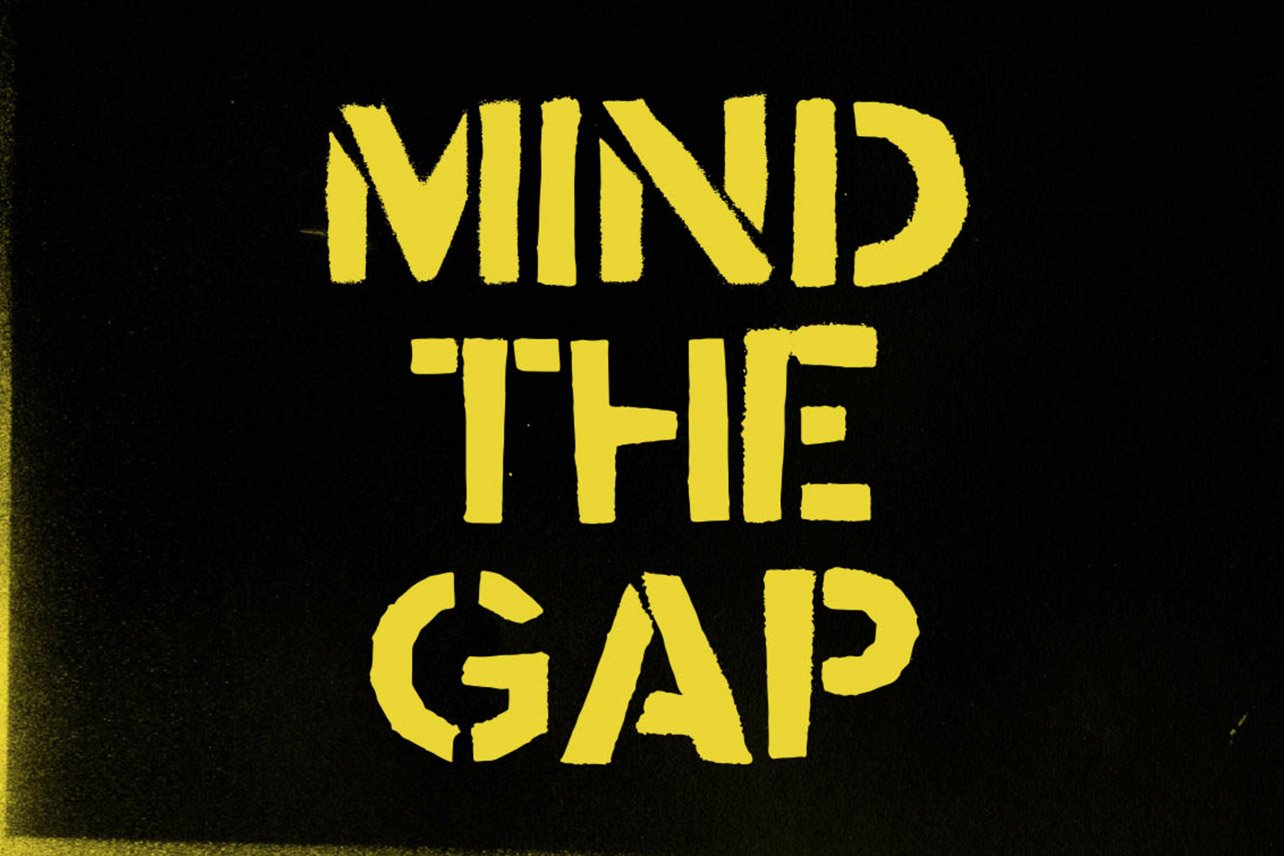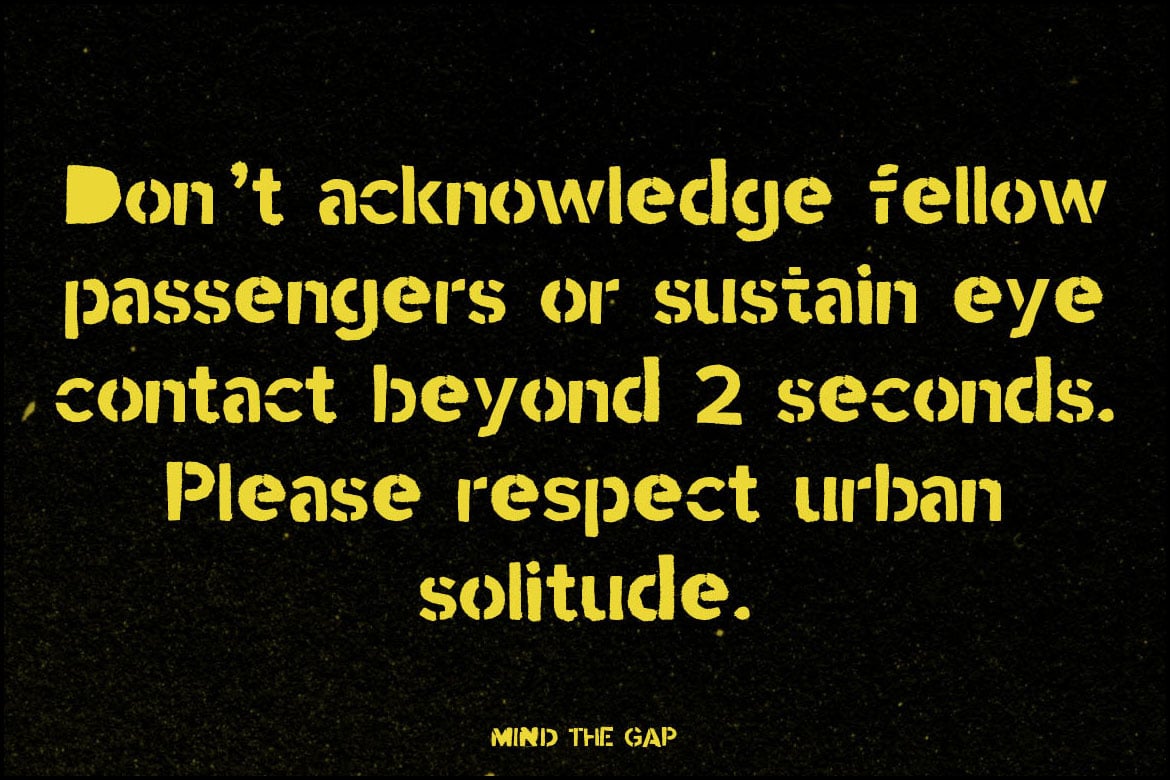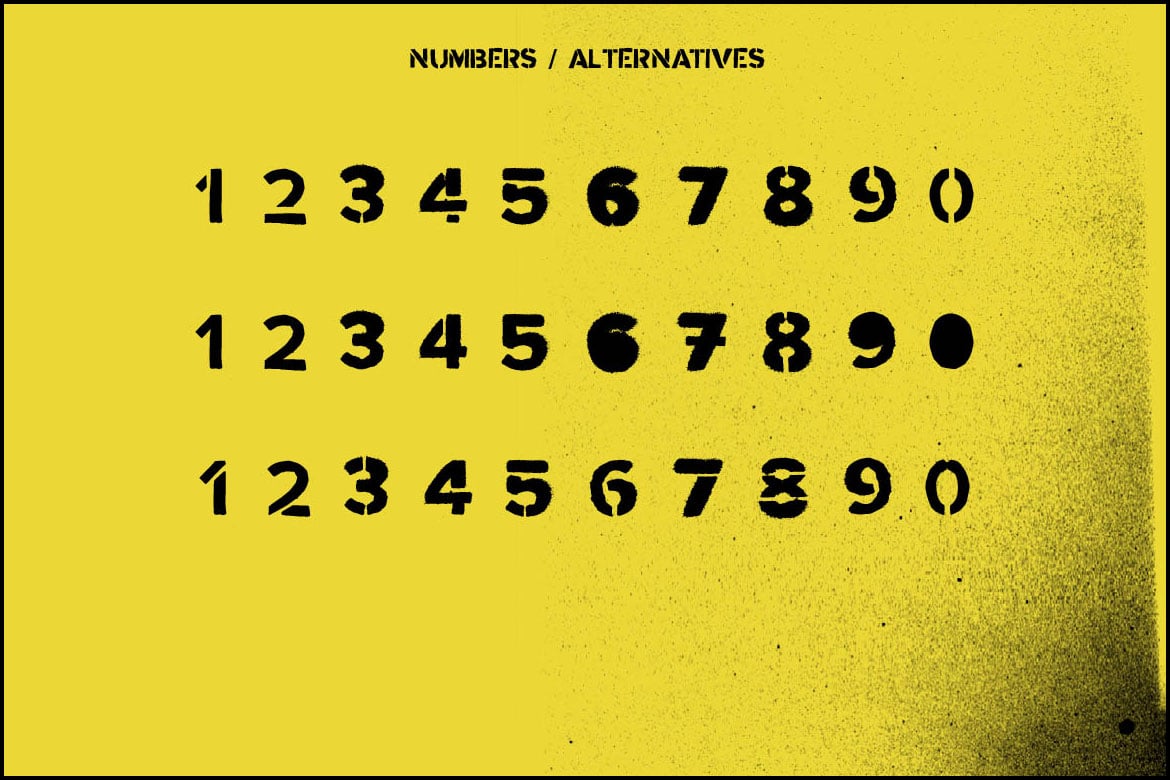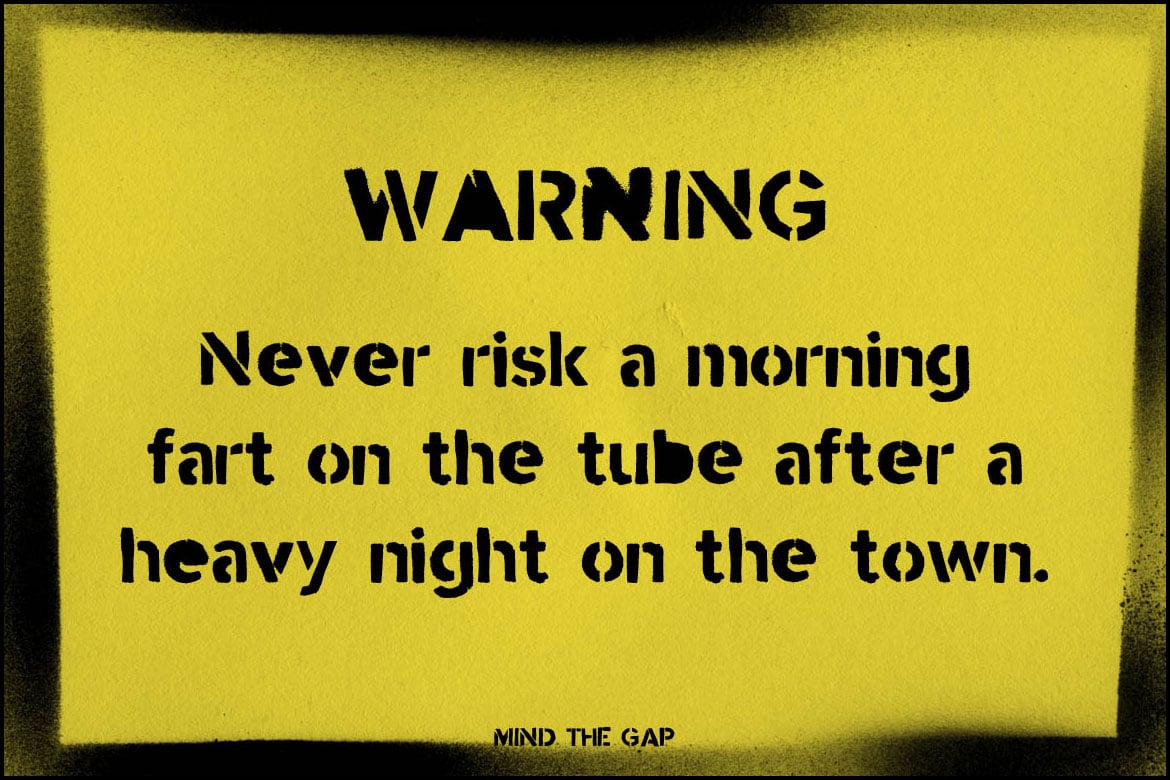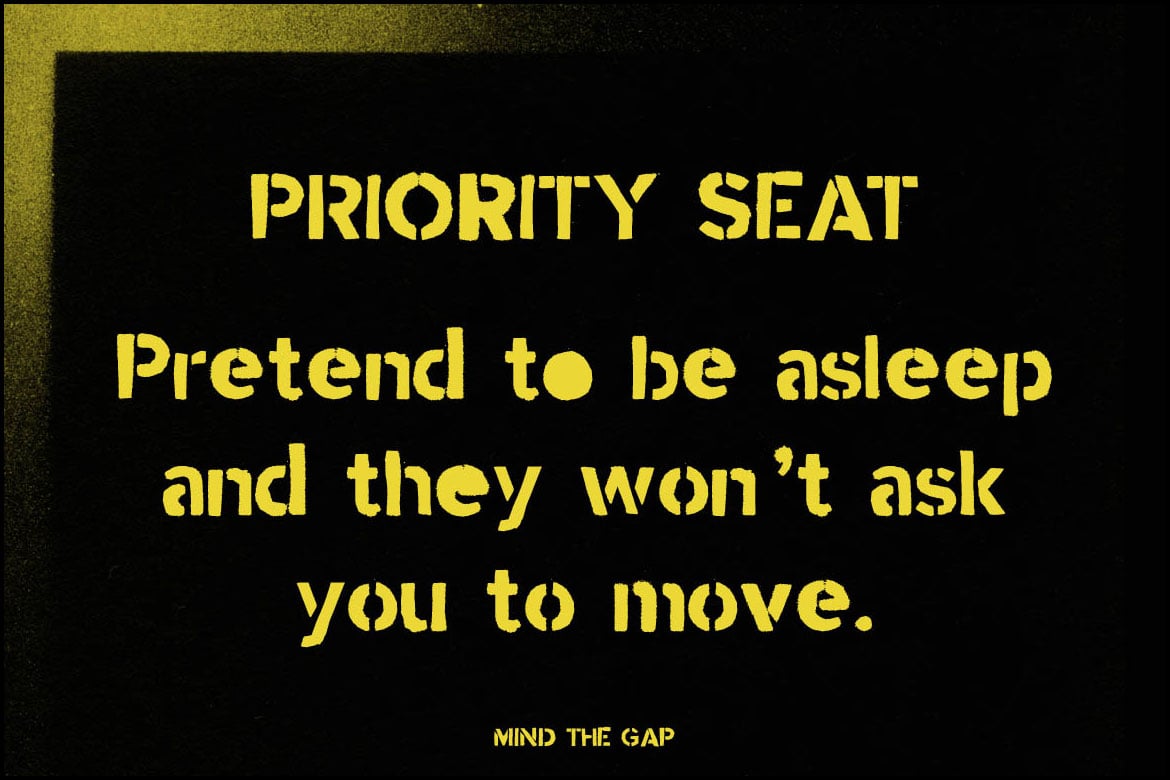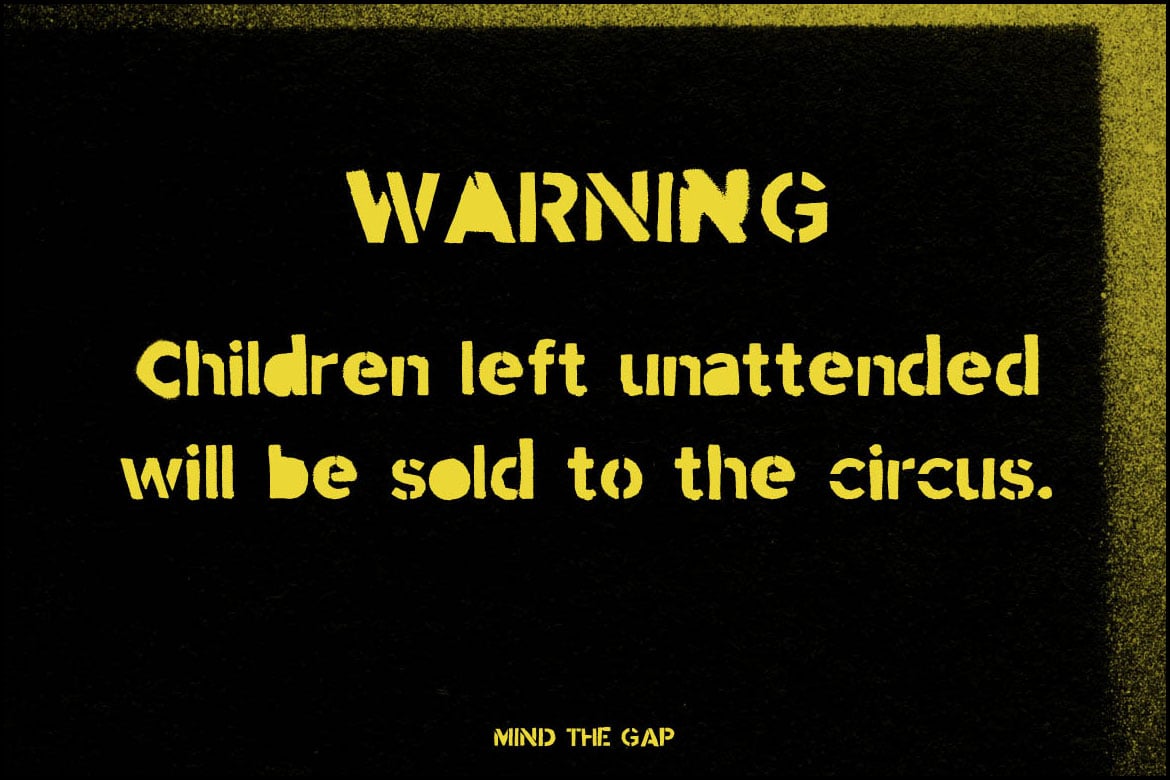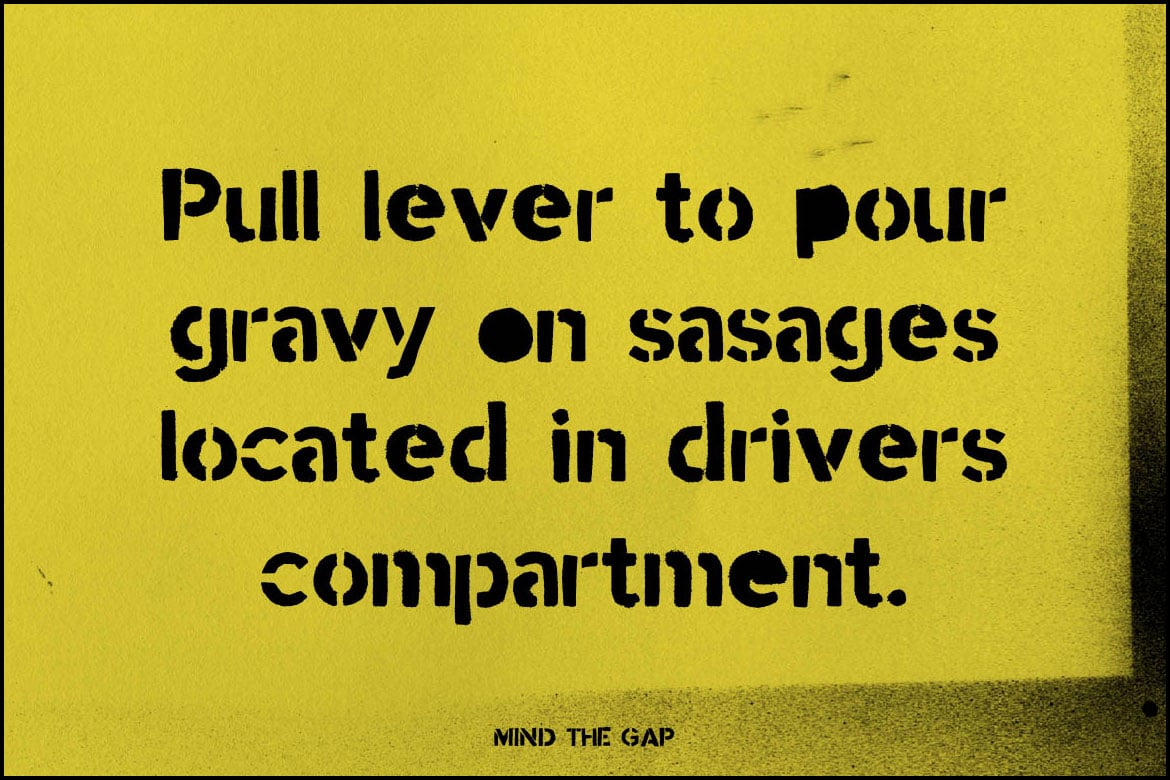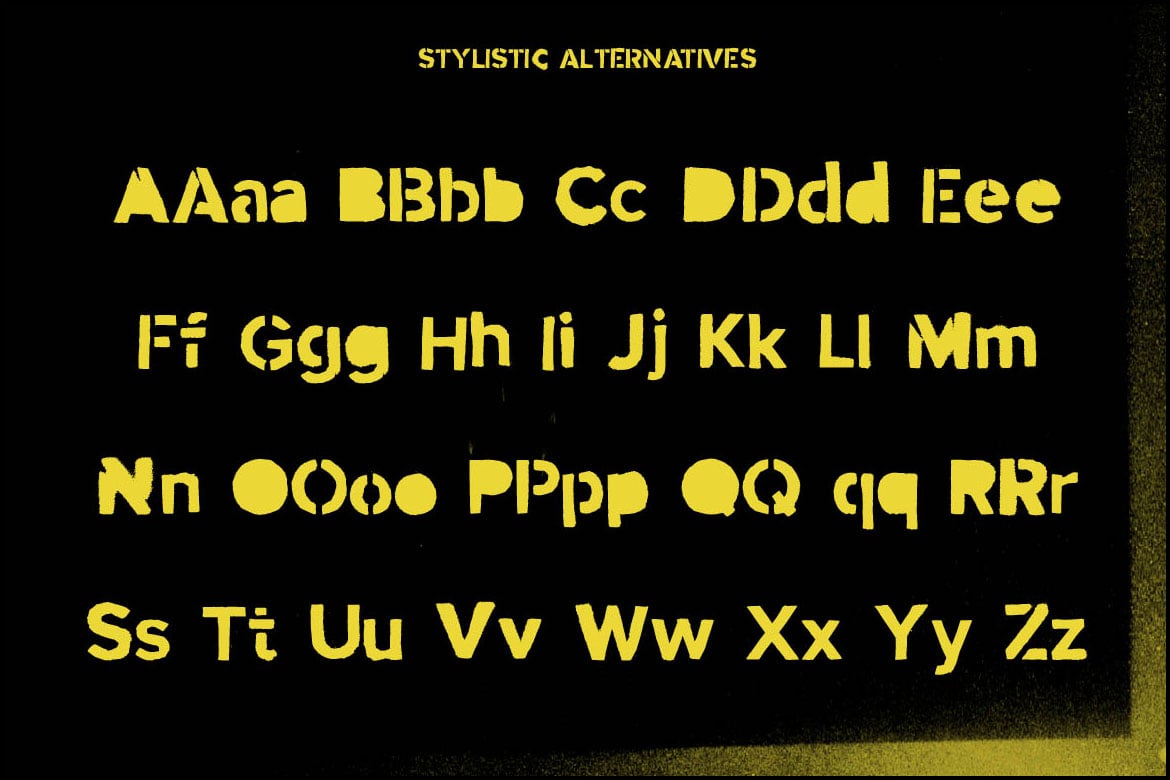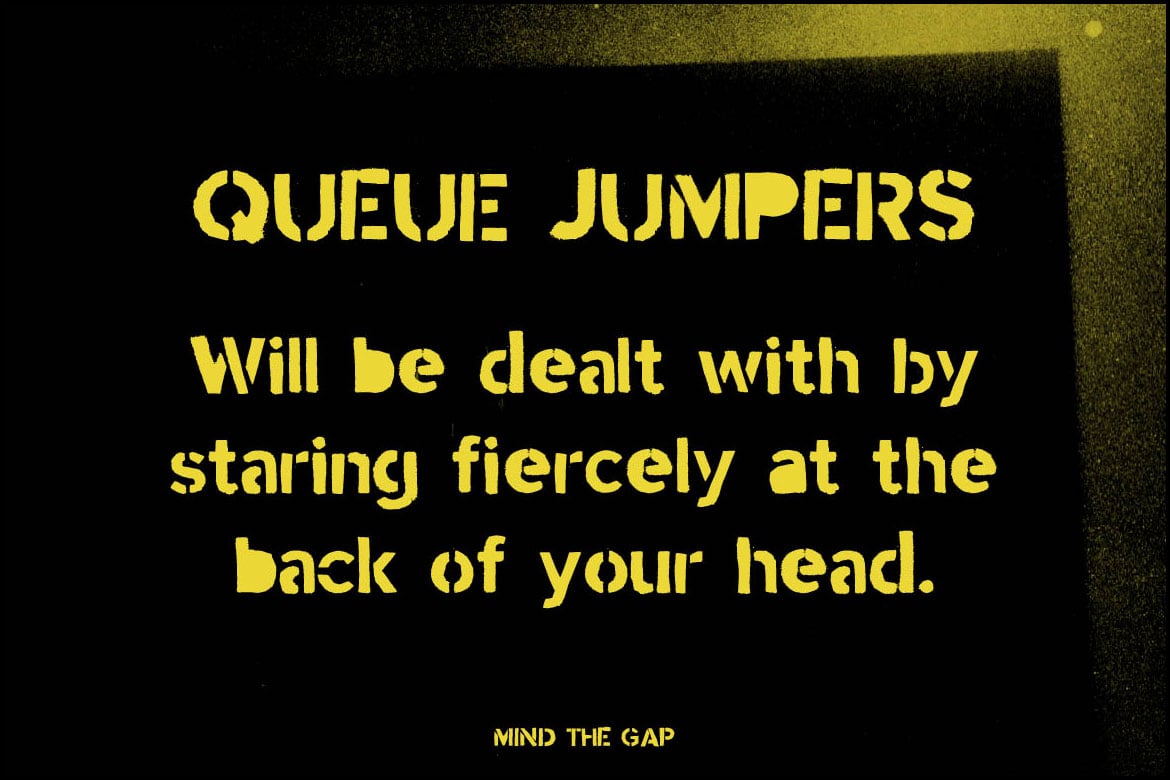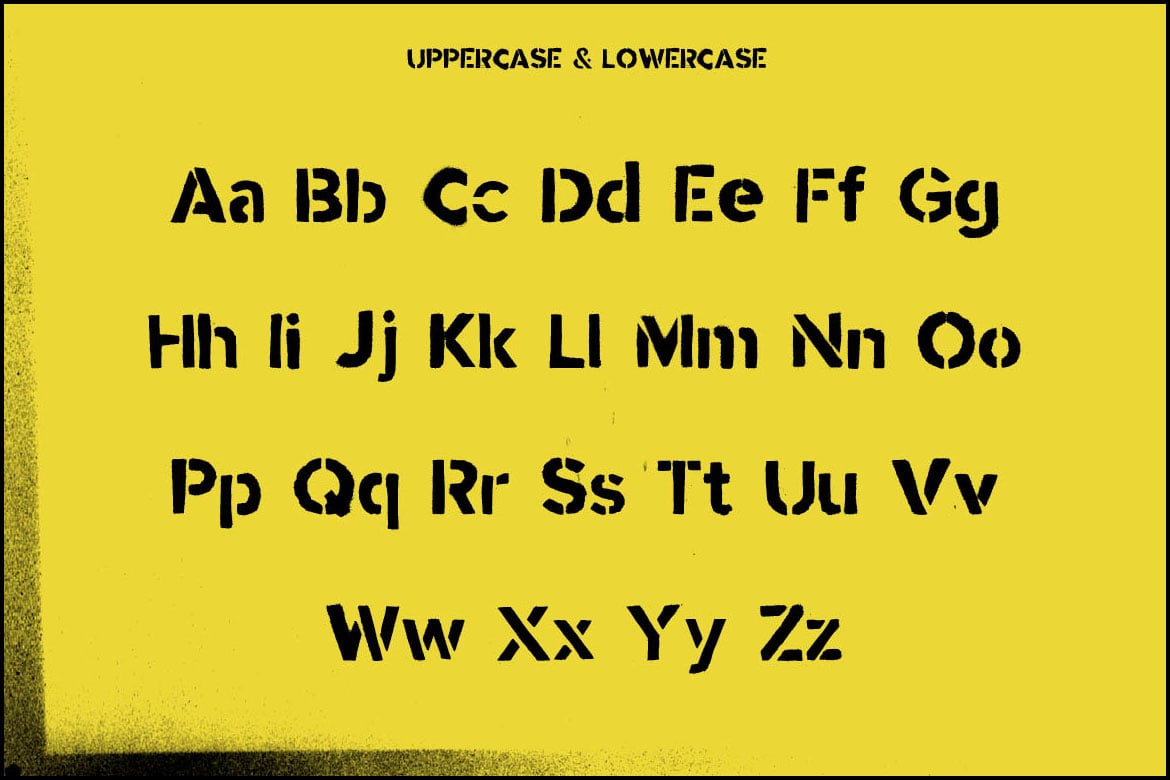
Stencil font Mind the Gap
Mind the Gap was born out of the frustration of the love/hate relationship I have of the daily commute.
I’m not sure if it’s just a London thing or if it’s the same in New York City, Paris, Madrid, Seoul, Shanghai, Beijing, Mexico City, Moscow, Tokyo and Berlin.
It was created by hand cutting letter stencils and spraying them with black paint. This gives it an industrial almost military look and feel.
It’s deliberately not perfect I wanted it to be dirty so it looks more real and has a bit of personality.
It includes one stylistic alternative for uppercase and lowercase A-Z. Plus an additional stylistic alternative for A,B,D,O,P,Q,R and a,b,d,e,g,o,p,q and three alternatives for numbers.
That means is you can change out repeated glyphs with alternatives.
- One weight
- Punctuation & Symbols
- Stylistic sets
- Western European characters
- Central European characters
- South Eastern European characters